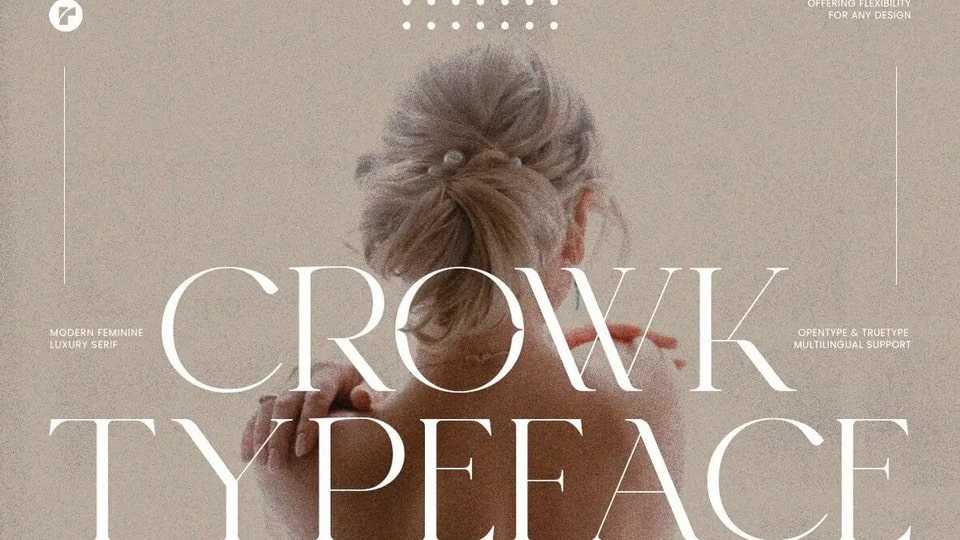
Download Crowk font, that seamlessly blends modern aesthetics with a touch of refined charm. Perfect for creating stunning logos, upscale branding materials, and editorial layouts.